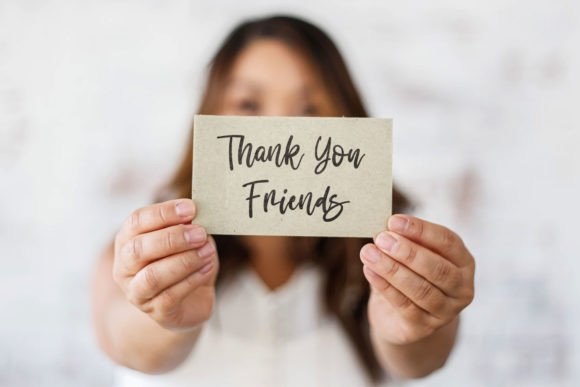
Introduction to Madelin Cheryl Font
As a designer, have you ever found yourself stuck in a creative rut, searching for the perfect font to elevate your project? You’ve scrolled through countless options, but none seem to capture the essence of your vision. Then, like a breath of fresh air, you stumble upon Madelin Cheryl Font – a delicate, elegant, and flowing handwritten font that’s about to change the game.
With its beautiful and well-balanced characters, Madelin Cheryl Font is the perfect design resource for any creative project. Whether you’re working on a high-quality brochure, a blog post, or a social media campaign, this versatile font is sure to impress. Its transparent background makes it easy to layer and combine with other design elements, giving you endless possibilities for customization.
Madelin Cheryl Font
- High-quality font suitable for creative projects, including digital art, graphic design, and typography.
- Designed with a unique, elegant style, perfect for adding a touch of sophistication to any creative project.
Honest Review: Madelin Cheryl Font
I recently stumbled upon the Madelin Cheryl Font, and I must say it’s a delightful addition to any design project. As a designer, I appreciate high-quality fonts that bring a touch of elegance to my work.
- What works well: ✨ The font’s unique script style and creative flair make it perfect for titles, headings, and other design elements that require a personal touch.
However, I do have a few reservations about the Madelin Cheryl Font. ⚠️ The font may not be suitable for large blocks of text, as it can be difficult to read at smaller sizes. Additionally, the font’s creative flair may not appeal to designers who prefer more traditional or minimalist styles.
Overall, I think the Madelin Cheryl Font is a great addition to any design library. Its unique style and free availability make it an excellent resource for designers looking to add some creativity to their projects. Just be mindful of its limitations, and use it judiciously in your designs.
Common Use Cases for Madelin Cheryl Font
Madelin Cheryl Font is perfect for a variety of creative projects, including:
- Event signage and banners